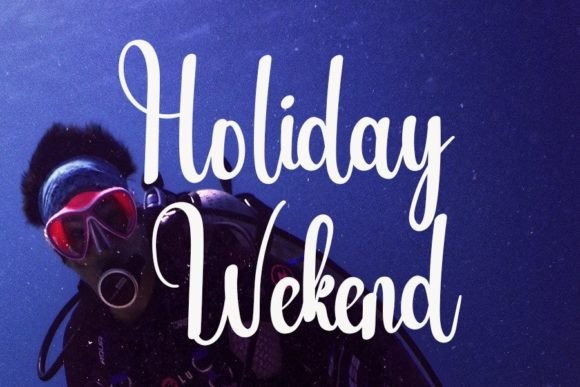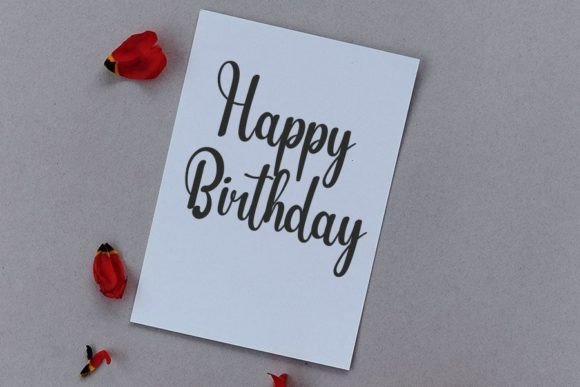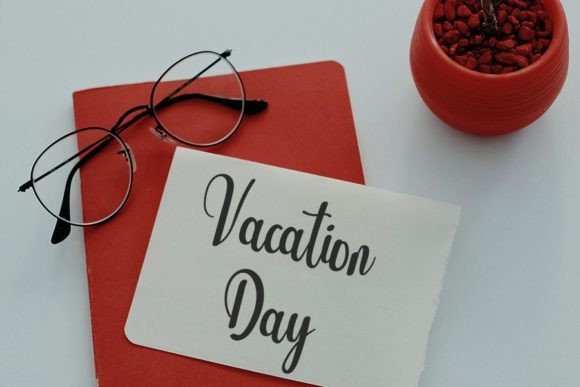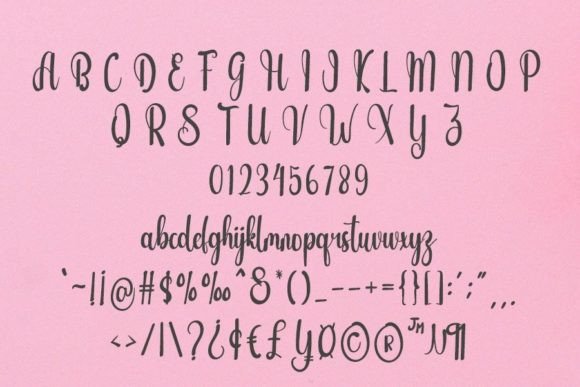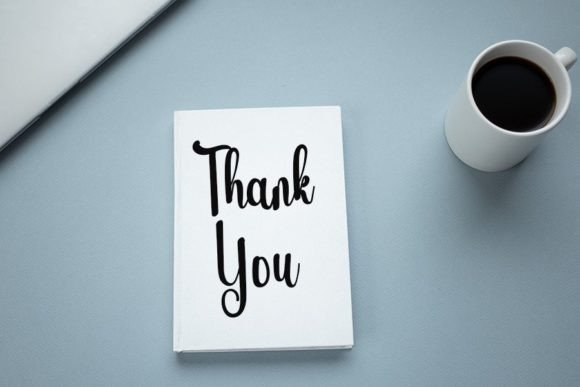
Hamilton Font: Elevate Your Designs with a Friendly Handwritten Style
Are you on the lookout for a font that combines elegance with a modern twist? Look no further than the Hamilton font. This beautifully crafted handwritten font is designed to capture your heart and become a staple in your design toolkit. With its classy calligraphic influences and fresh, contemporary feel, Hamilton is the perfect choice for designers and crafters aiming to make their projects stand out.
The Essence of Hamilton Font
Hamilton is more than just a font; it’s a design element that brings a personal touch to any project. Its friendly and approachable style makes it versatile for a wide range of applications, from branding and advertising to packaging and digital content. The font’s design is carefully considered to ensure it remains legible and aesthetically pleasing across various mediums, making it an excellent choice for both print and digital projects.
Key Features of Hamilton Font
• Classy Calligraphic Influences: Hamilton’s roots in traditional calligraphy are evident, giving it an air of sophistication and elegance. However, it’s been carefully adapted to feel modern and relevant.
• Contemporary and Fresh: The font doesn’t just lean on its classic influences; it also incorporates a contemporary feel that makes it suitable for modern designs and trends.
• Versatility: Hamilton can be used in a variety of contexts, from formal to informal, making it a highly versatile addition to any designer’s toolkit.
• Legibility: Despite its elegant and cursive nature, Hamilton maintains high legibility, ensuring that your messages are conveyed clearly and effectively.
Using Hamilton Font in Your Projects
Adding Hamilton to your design projects is straightforward and beneficial. Whether you’re working on a branding campaign, creating engaging social media content, designing packaging, or crafting compelling advertisements, Hamilton can elevate your work. Its unique blend of classic and contemporary styles allows it to complement a wide range of design aesthetics.
• Pair it Wisely: Hamilton pairs well with clean sans-serif fonts for a modern contrast or with serif fonts for a more traditional look. Experiment with different combinations to find the perfect balance for your project.
• Play with Weights: If available, using different weights of Hamilton can add depth and hierarchy to your designs. This is particularly useful in editorial design and advertising.
• Consider the Context: While Hamilton is versatile, consider the context and audience of your project. Adjust the color, size, and styling to ensure it aligns with your overall design message.
Why Choose Hamilton Font?
In a world where fonts are abundant, Hamilton stands out for its unique blend of elegance and modernity. It’s not just about aesthetics; it’s about conveying a message with personality and style. Hamilton font offers:
• Uniqueness: Stand out from the crowd with a font that is both distinctive and memorable.
• Emotional Connection: Its friendly and approachable nature helps create an emotional connection with your audience.
• Professionalism: Despite its friendly feel, Hamilton exudes professionalism, making it suitable for a wide range of applications.
Hamilton font is a beautifully designed handwritten font that brings a touch of elegance and modernity to any project. Its versatility, legibility, and unique style make it an excellent choice for designers and crafters looking to elevate their designs. Whether you’re working on a branding project, digital content, or print materials, Hamilton is sure to make your projects outstanding. Add it to your toolkit today and discover the difference it can make.